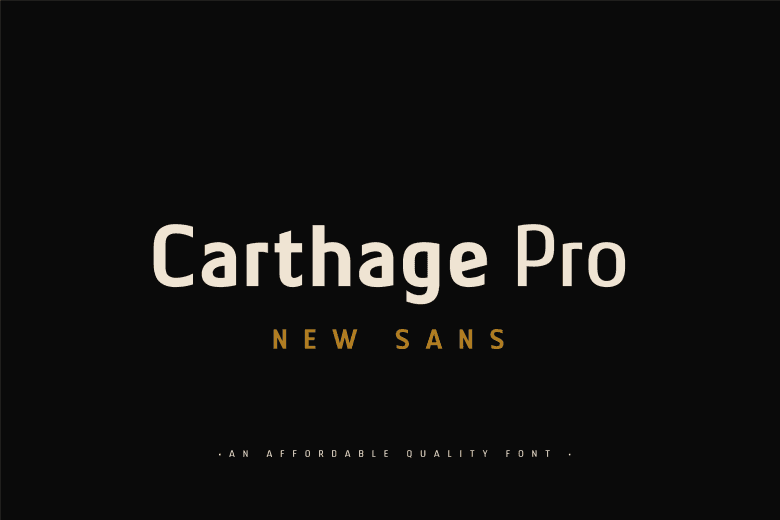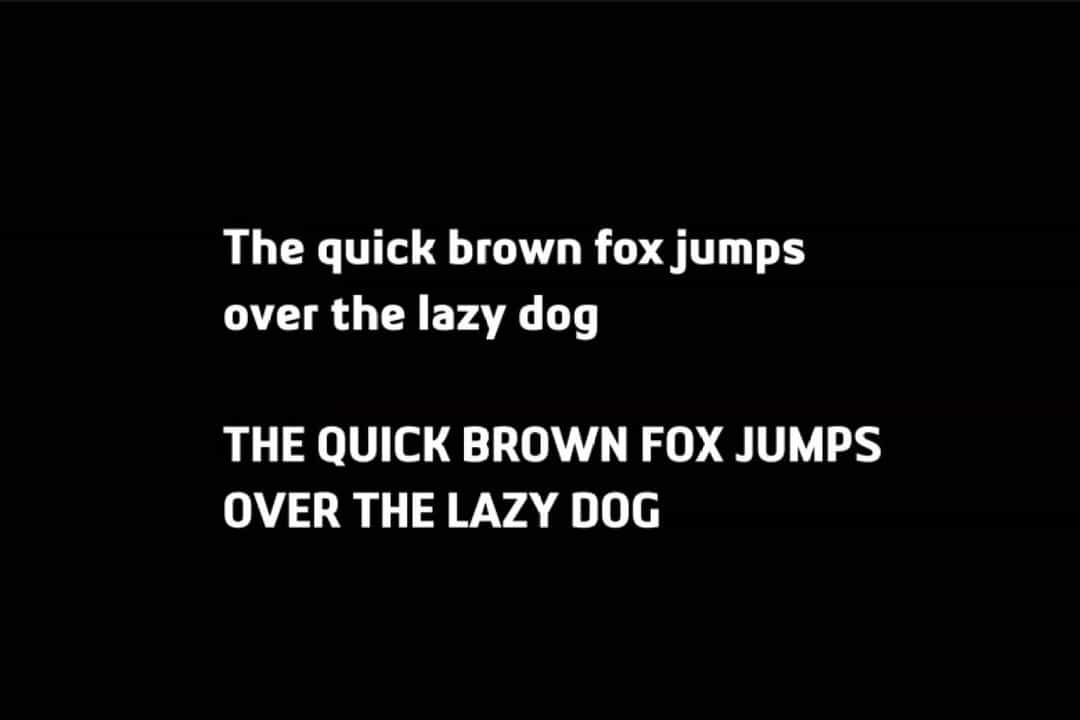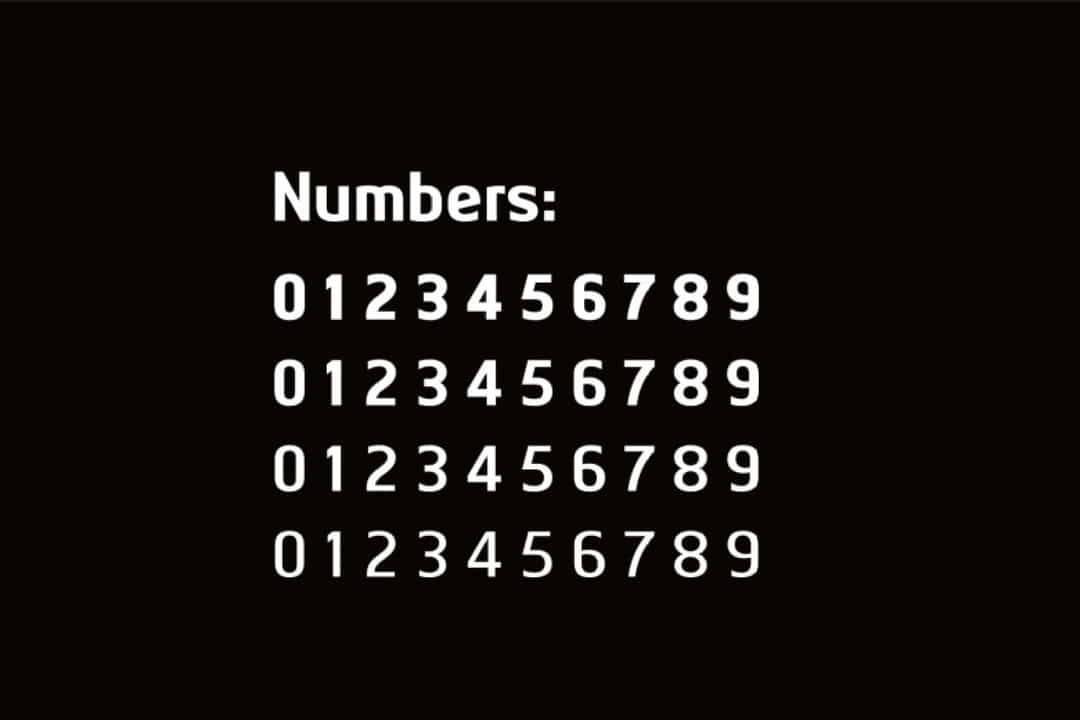
Carthage Pro is an easy, modern sans serif font suitable for many different designs. From banner, logo and label creation to website and advertising designs and more – Carthage Pro stands out and makes an impactful statement about you and what you plan to accomplish. It will add distinction and flair to whatever project is at hand!